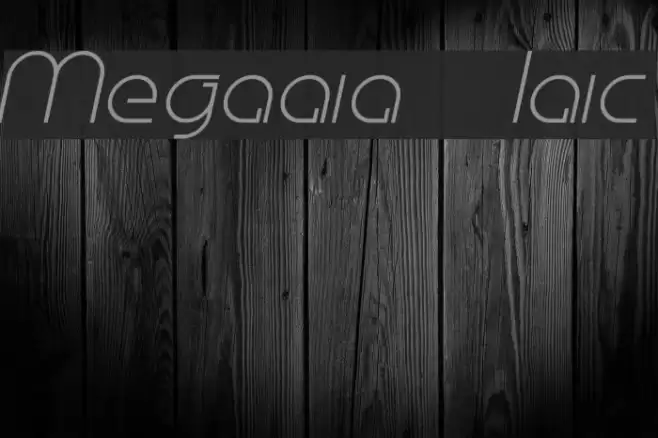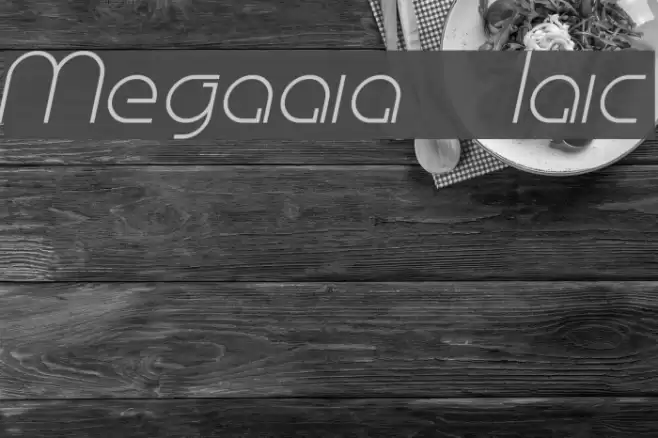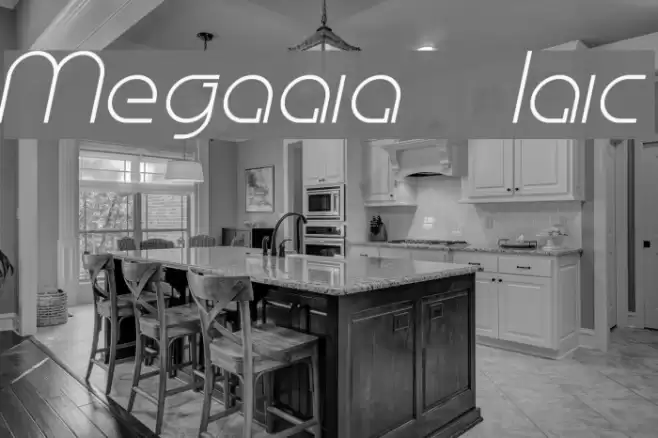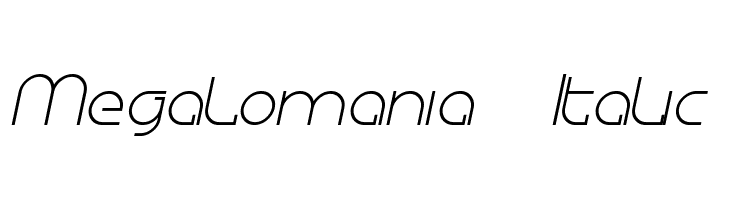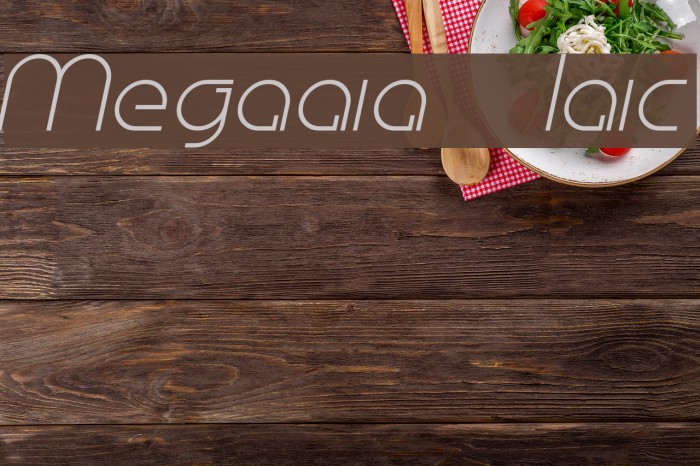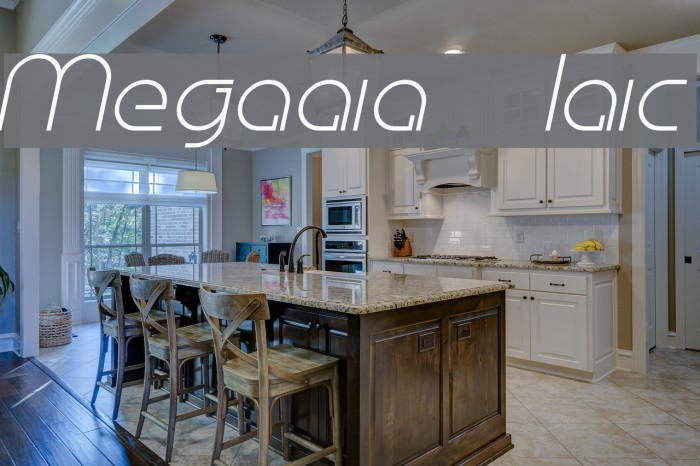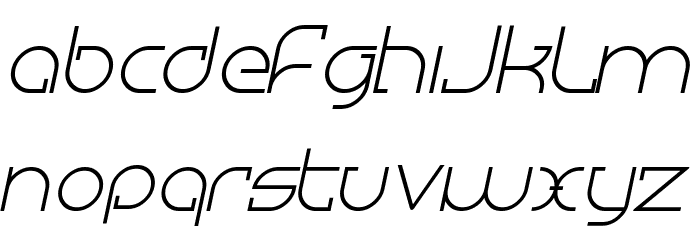
Megalomania Italic Font
Megalomania Italic Description
This font features a futuristic and sleek design with a distinct italic slant, giving it a dynamic and forward-moving appearance. The characters are composed of clean, geometric lines with rounded edges, creating a sense of modernity and innovation. The uppercase and lowercase letters maintain a consistent style, with the uppercase letters exhibiting a slightly more angular form. The numerals and special characters are designed to match the overall aesthetic, ensuring uniformity across all text. This font's unique style makes it suitable for projects that require a contemporary and cutting-edge look.
A futuristic, italic font with geometric lines and a sleek, modern design from Uncategorized fonts.
- Overall Style: Futuristic